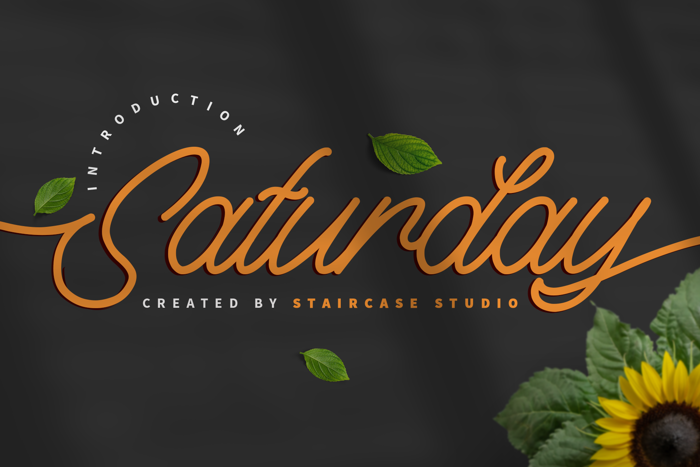
Saturday Font
Saturday font with script handwritten styles. A collection of letters and numbers suitable your projects also great for Logotype, Branding Design, Logo Design, Digital Lettering Arts, T-Shirt/Apparel, Poster, Magazine, Signs, Advertising Design, and any design needs.